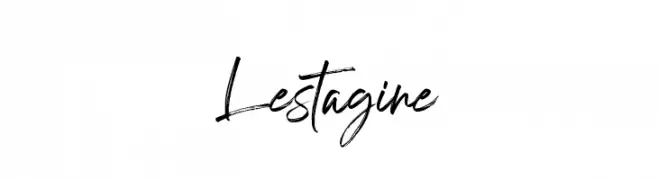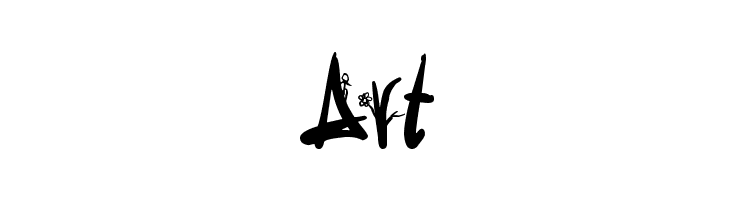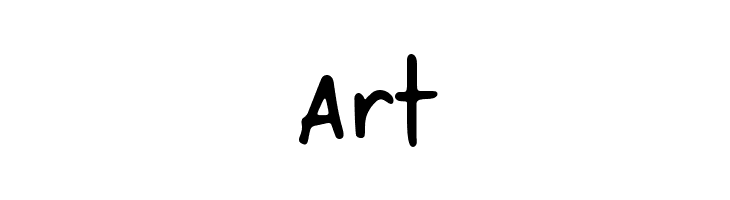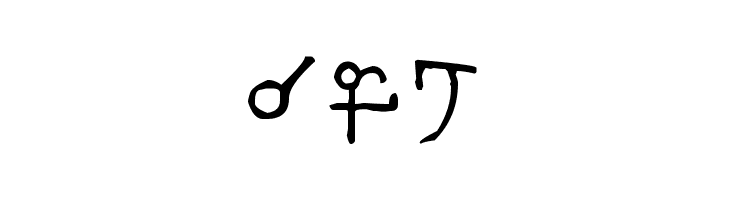
A modern, geometric font with a futuristic and clean design.
A bold, playful font with a graffiti-inspired style.
A dynamic, brush-style handwritten font with expressive strokes.
Playful handwritten font with a casual vibe.
A bold, decorative font with a distressed, grunge-like texture and sharp angles.
A chaotic, ransom note-style font with mixed typefaces and sizes.
A bold, eclectic font with a distressed, collage-like appearance.
An eclectic, ransom-note style font with bold, varied characters.